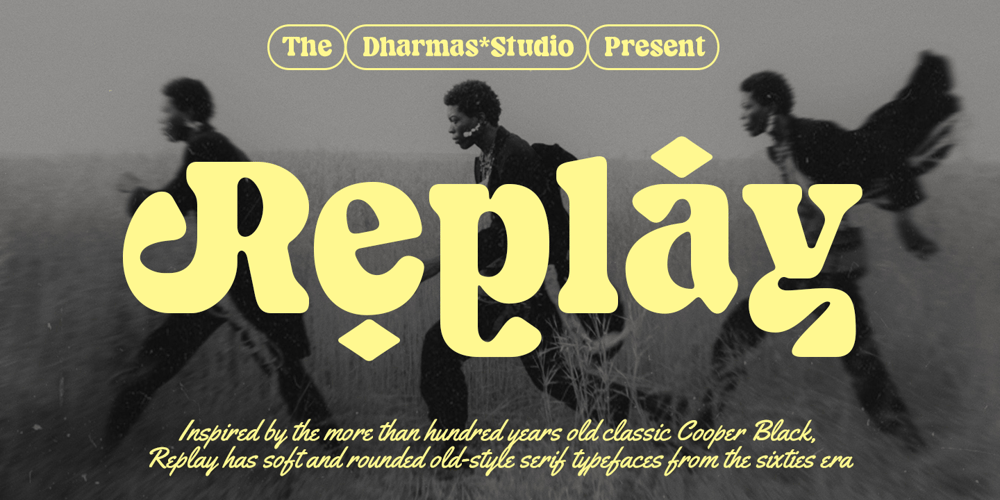
Replay Font Family was designed by Ahmad Jamaludin and published by Ahmad Jamaludin. Replay contains 1 styles and family package options. Replay – Inspired by more than a hundred years from Cooper Black, Replay has a soft and rounded old-style serif typeface from the sixties era. Replay give a clean and versatile letterform that fits not only for display but also for reading purposes.Replay – equipped with several OpenType. Have 84 unique alternates and ligatures which consist of 3 stylistic sets. Comes with alternatives and ligatures, and helps to create stunning logos, quotes, posts, blog posts, branding projects, magazine imagery, wedding invitations, and much more.What you get Instructions Letters, numbers, symbols, and punctuation 84 unique alternates and ligatures Use in many programs even in Canva Multilingual Support Language Support: Danish, English, Estonian, Filipino, Finnish, French, Friulian, Galician, German, Gusii, Indonesian, Irish, Italian, Luxembourgish, Norwegian Bokmål, Norwegian Nynorsk, Nyankole, Oromo, Portuguese, Romansh, Rombo, Spanish, Swedish, Swiss-German, Uzbek (Latin)Come and say hello over on Instagram! https://www.instagram.com/dharmas.studio/Dharmas Studio